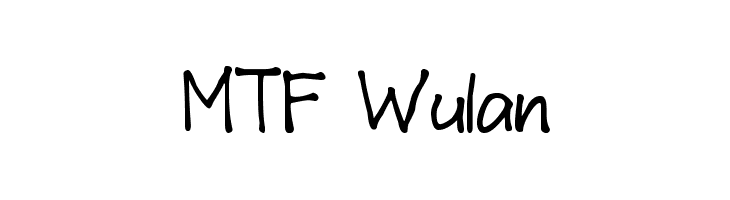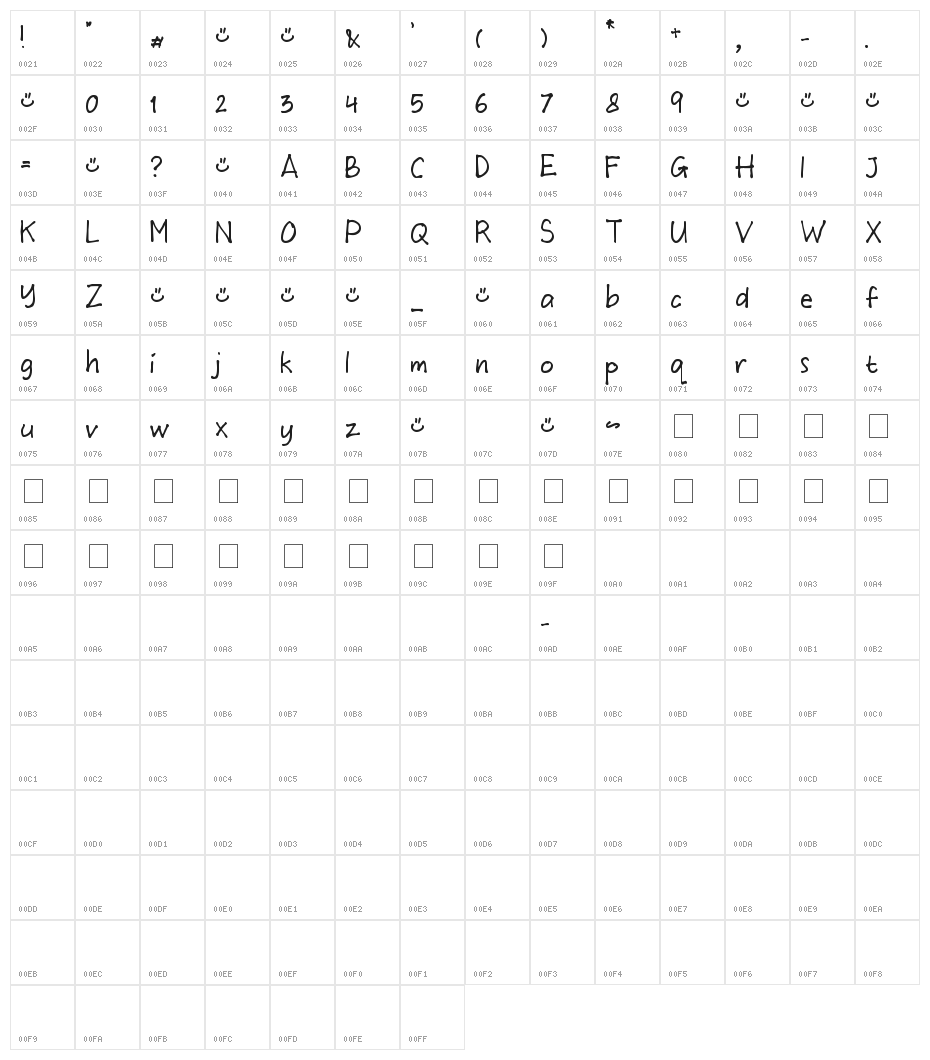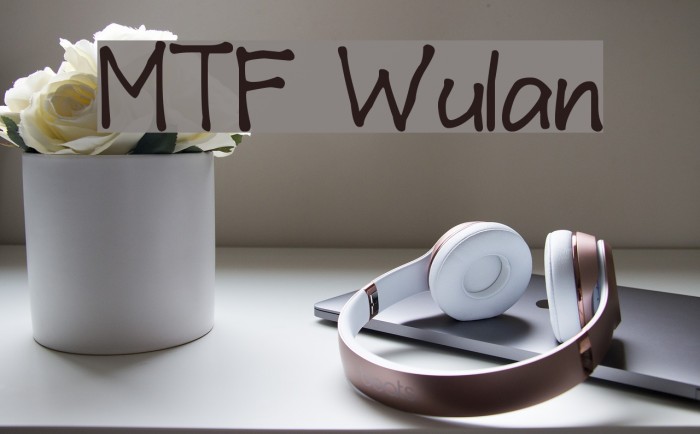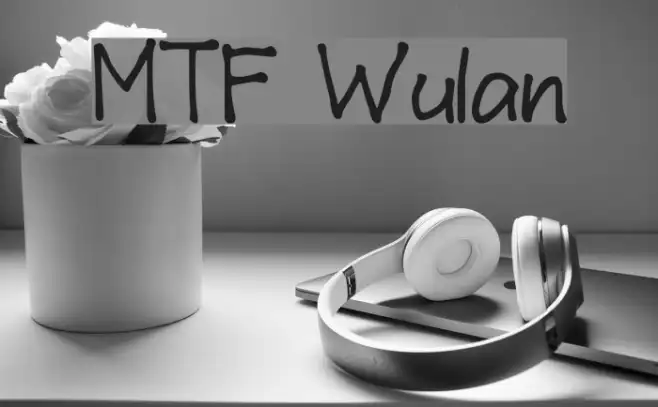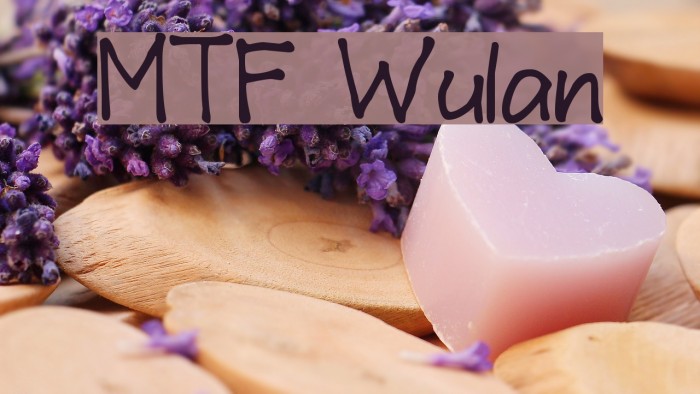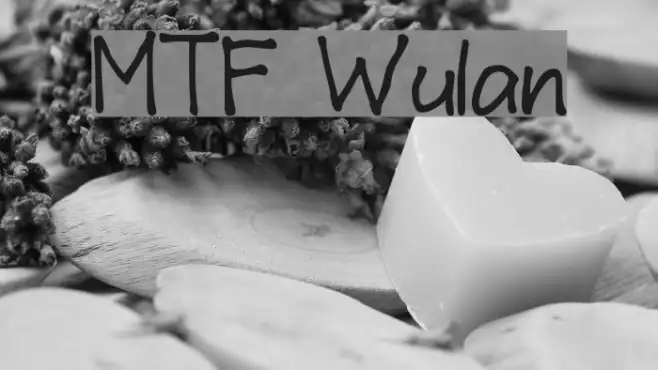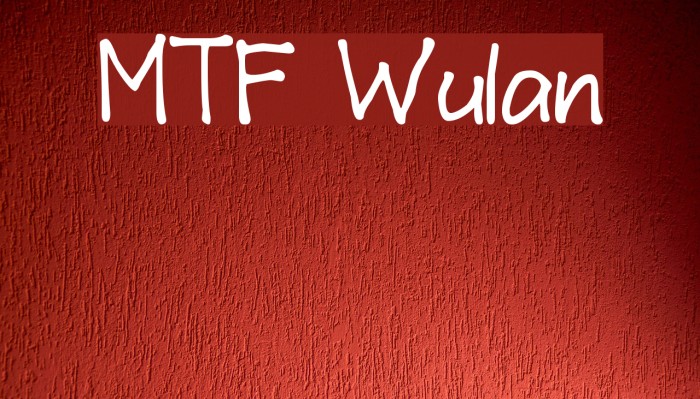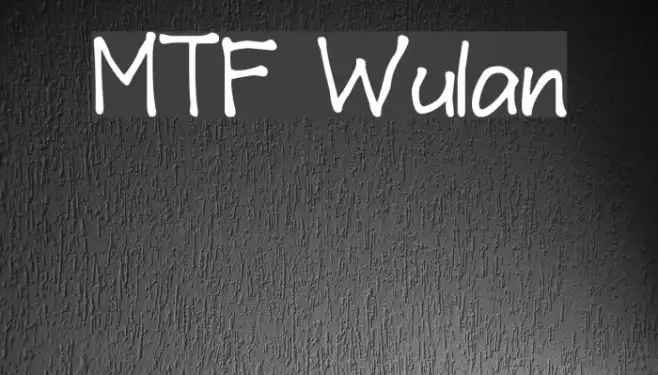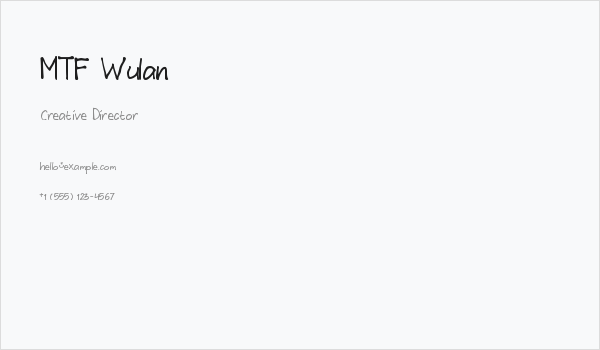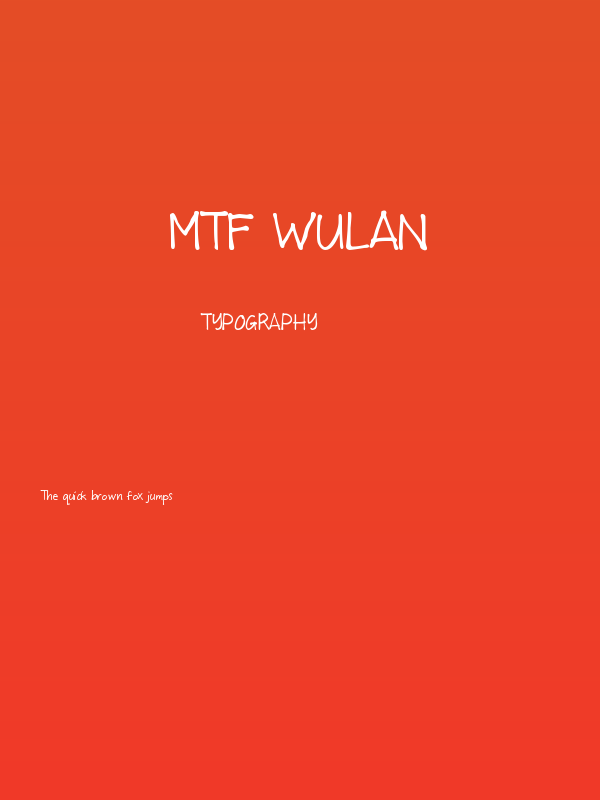
MTF Wulan Font
MTF Wulan Description
This playful and informal font features a handwritten style with a casual, friendly appearance. The letters are slightly irregular, giving it a natural and organic feel. The strokes are consistent in width, providing a uniform look across all characters. The uppercase and lowercase letters maintain a cohesive style, while the numbers and special characters complement the overall design. This font exudes a sense of approachability and creativity, making it suitable for projects that require a personal touch.
| Proposed Projects | Ideal for greeting cards, children's books, personal blogs, and creative branding projects. |